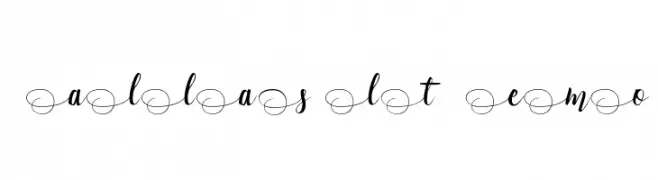
An elegant script font with flowing, cursive style and graceful loops.
An elegant, cursive script font with graceful loops and swirls.
An elegant script font with fluid, connected strokes and a handwritten feel.
An elegant and flowing script font with graceful curves and a classic calligraphic influence.
An elegant script font with flowing, cursive style and intricate swashes.
An elegant, cursive font with intricate swirls and loops.